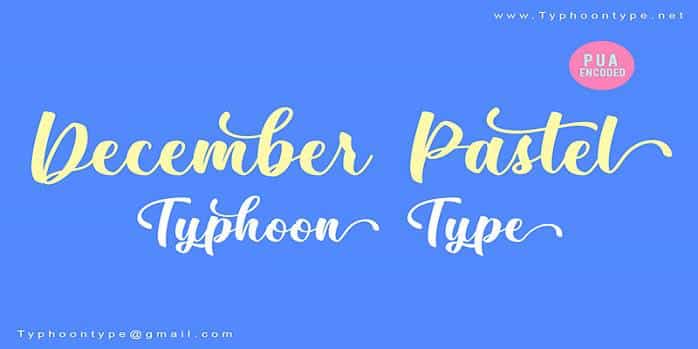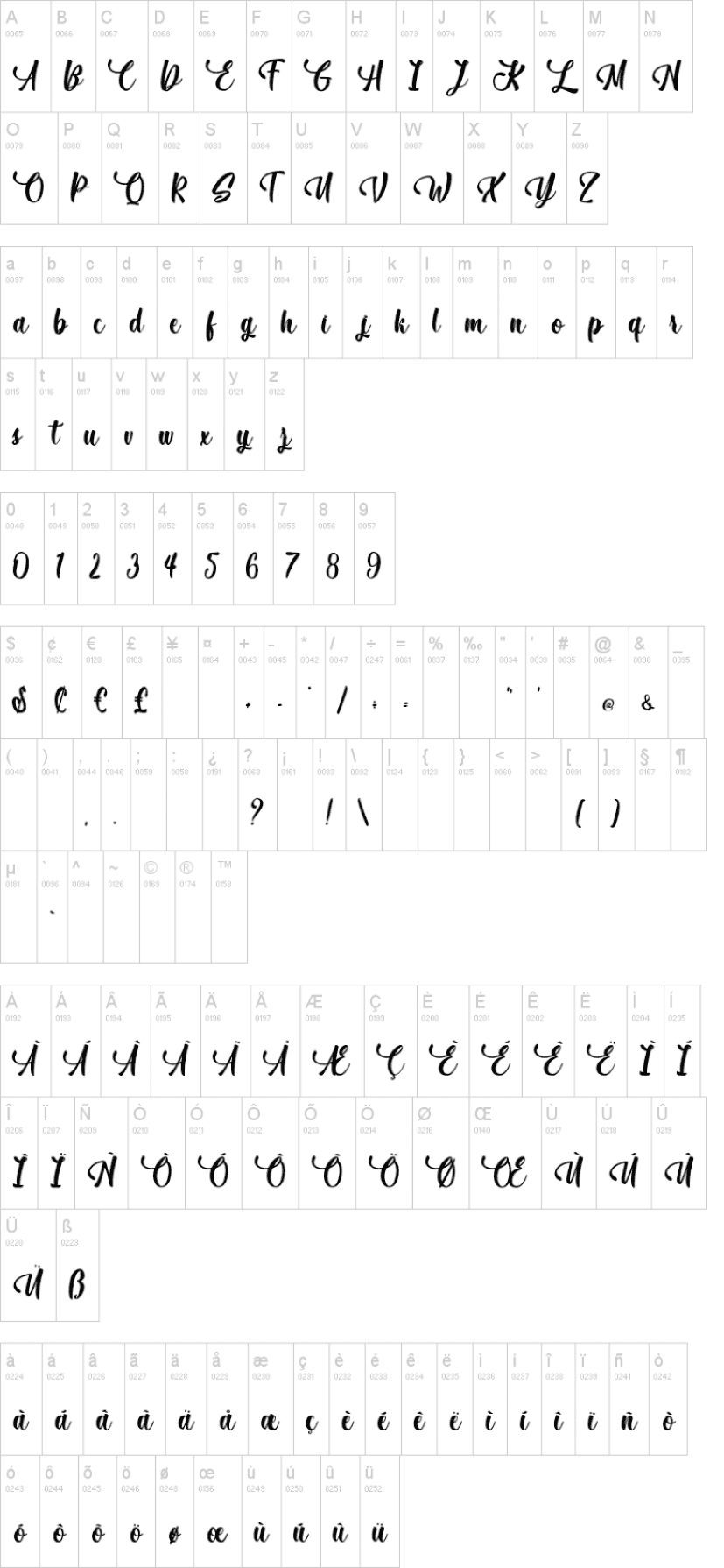
December Pastel is a high-class Brush font by the designer Typhoon Type – Suthi Srisopha and is offered for free download and personal use. The free version offers all lower case and upper case letters and also a few special characters.